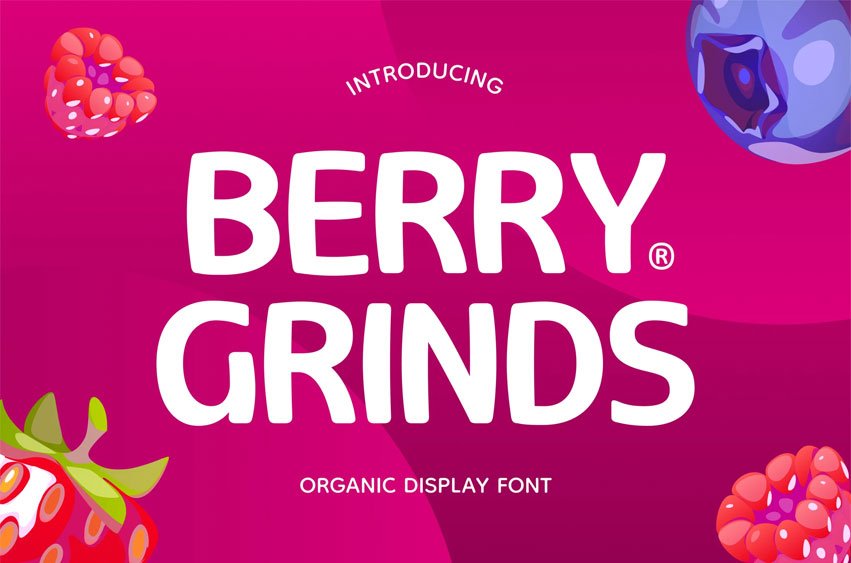
Berry Grinds Font
Berry Grinds Font Display Font is a bold, playful display font with rounded shapes and a modern, friendly personality.
Perfect for branding, gaming, packaging, kids products, social media, posters, logos, and creative headlines, it delivers eye-catching typography that makes every design memorable, fun, energetic, and professionally distinctive.